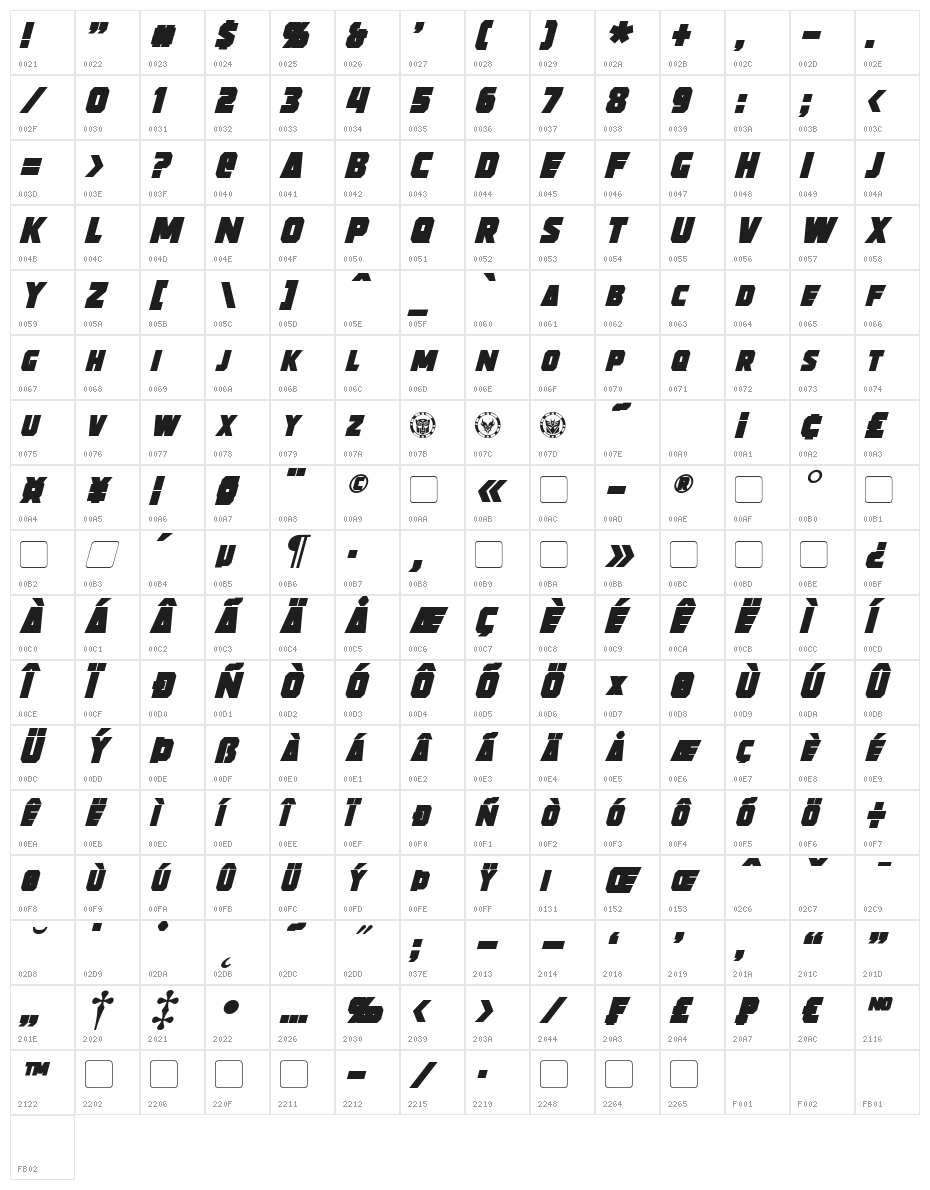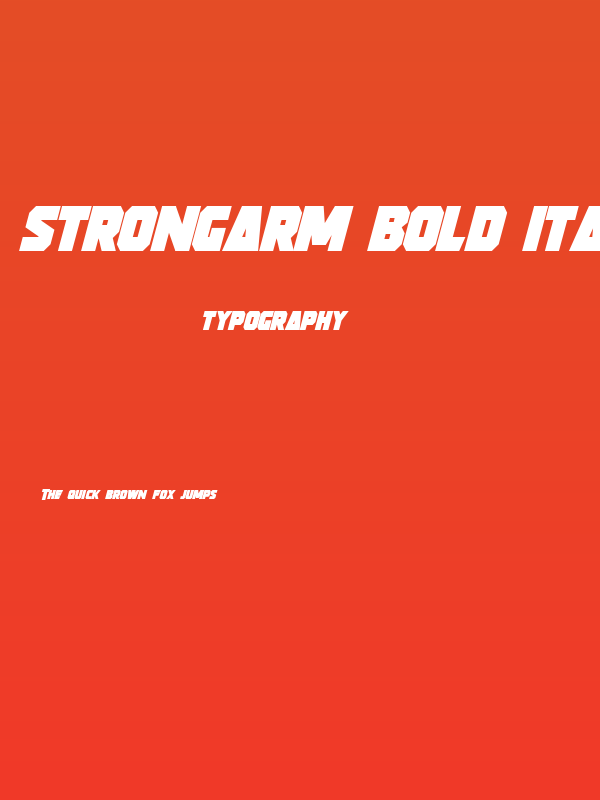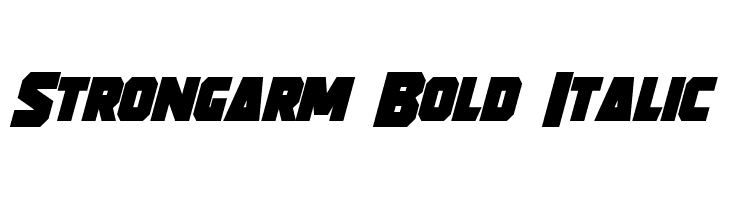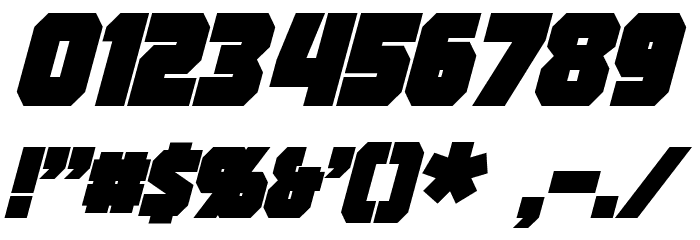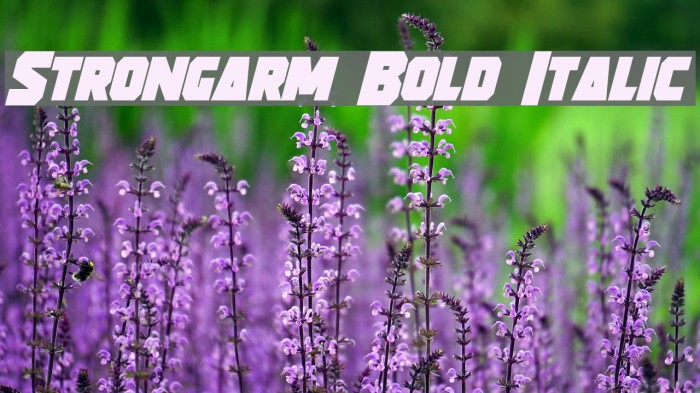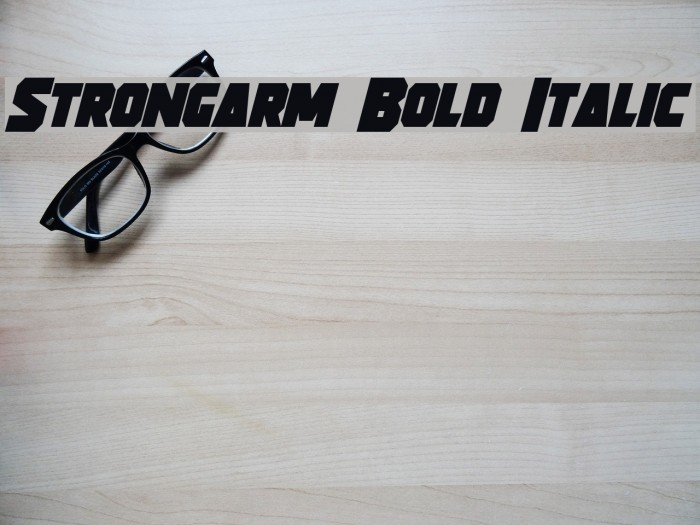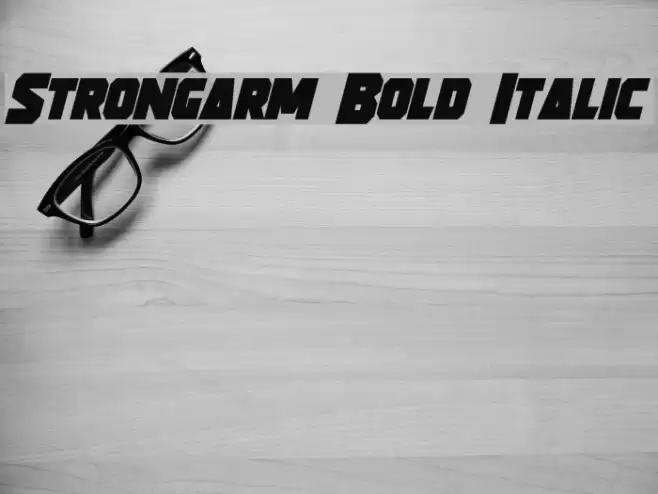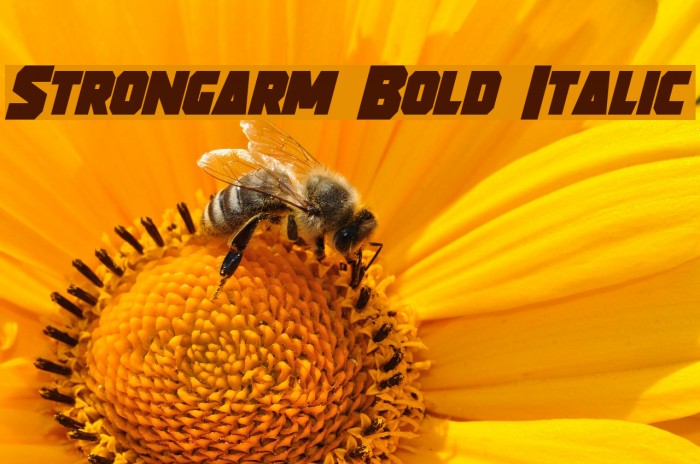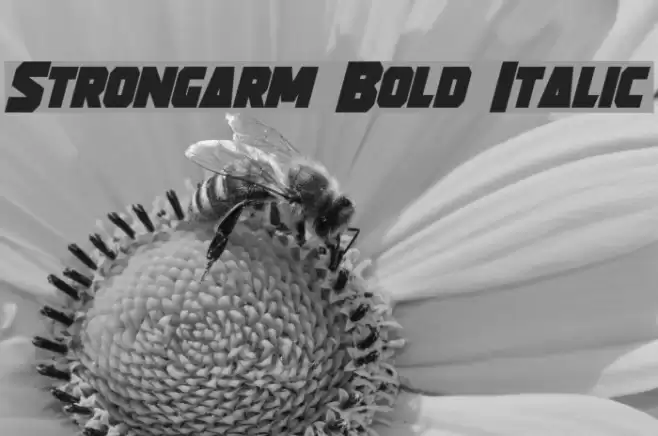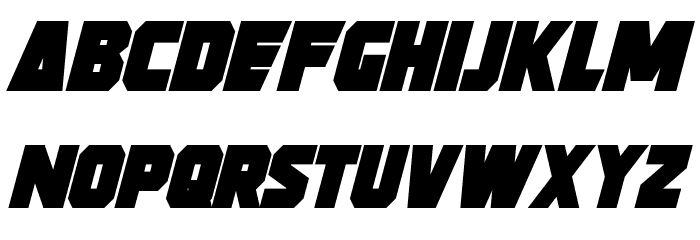
Strongarm Bold Italic Font
Strongarm Bold Italic Description
This font features a bold and italicized style with a strong, angular design. The characters are heavily slanted, giving a sense of motion and dynamism. The strokes are thick and consistent, providing a robust and impactful appearance. The uppercase letters are particularly striking, with sharp edges and a geometric feel. The numbers and special characters maintain the same bold and angular aesthetic, ensuring uniformity across all elements. This font is designed to capture attention and convey strength and power.